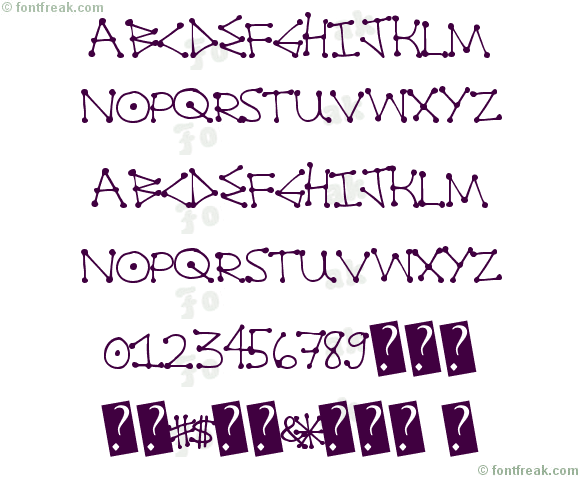
DotLine
The DotLine font by XEROGRAPHER FONTS is a unique decorative typeface that combines playful elements with a modern aesthetic. This font stands out as an engaging display type, ideal for various creative projects. Its distinct visual characteristics include a lightweight stroke, consistent spacing, and charming dotted accents that give it a whimsical yet polished appearance. The subtle contrast in stroke weight enhances its legibility while maintaining a light-hearted feel.
This font is particularly well-suited for a range of applications. For instance, its playful nature makes it perfect for children's book covers, where a fun and inviting look is essential. Additionally, DotLine works wonderfully for party invitations, lending a celebratory vibe that can attract attention. Small business owners can utilize it for branding materials, such as logos or signage, where a memorable and distinctive font can help establish their identity. It also shines in social media graphics, where eye-catching typography can elevate engagement.
The target audience for the DotLine font includes graphic designers looking for a fresh and unique typeface, small business owners aiming to create a strong brand presence, and content creators seeking to bring a lively touch to their projects.
What sets the DotLine font apart is its ability to blend creativity with versatility. Its light-hearted design captures attention while ensuring readability, making it an excellent choice for those who wish to make a statement without overwhelming their audience. With the DotLine font free download, you can easily incorporate this delightful typeface into your next project and explore the endless possibilities it offers. Whether for playful designs or professional branding, DotLine brings a unique charm that elevates any visual communication.